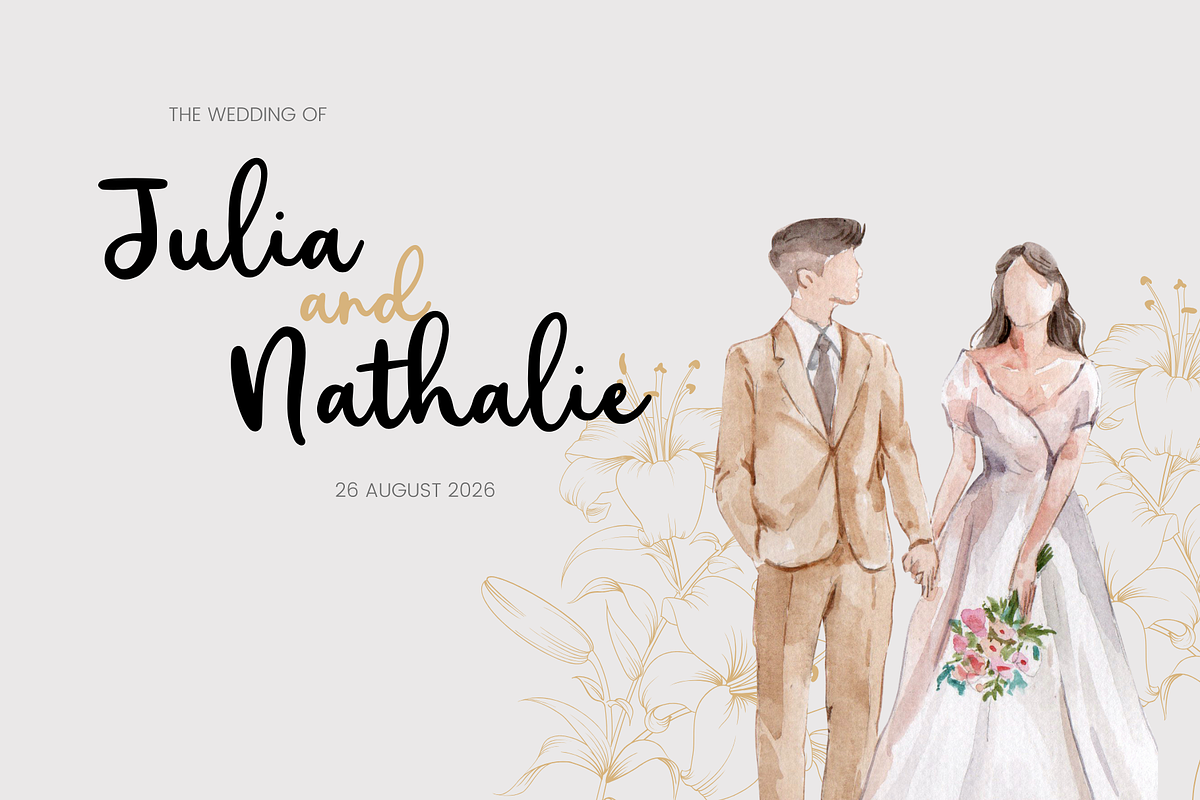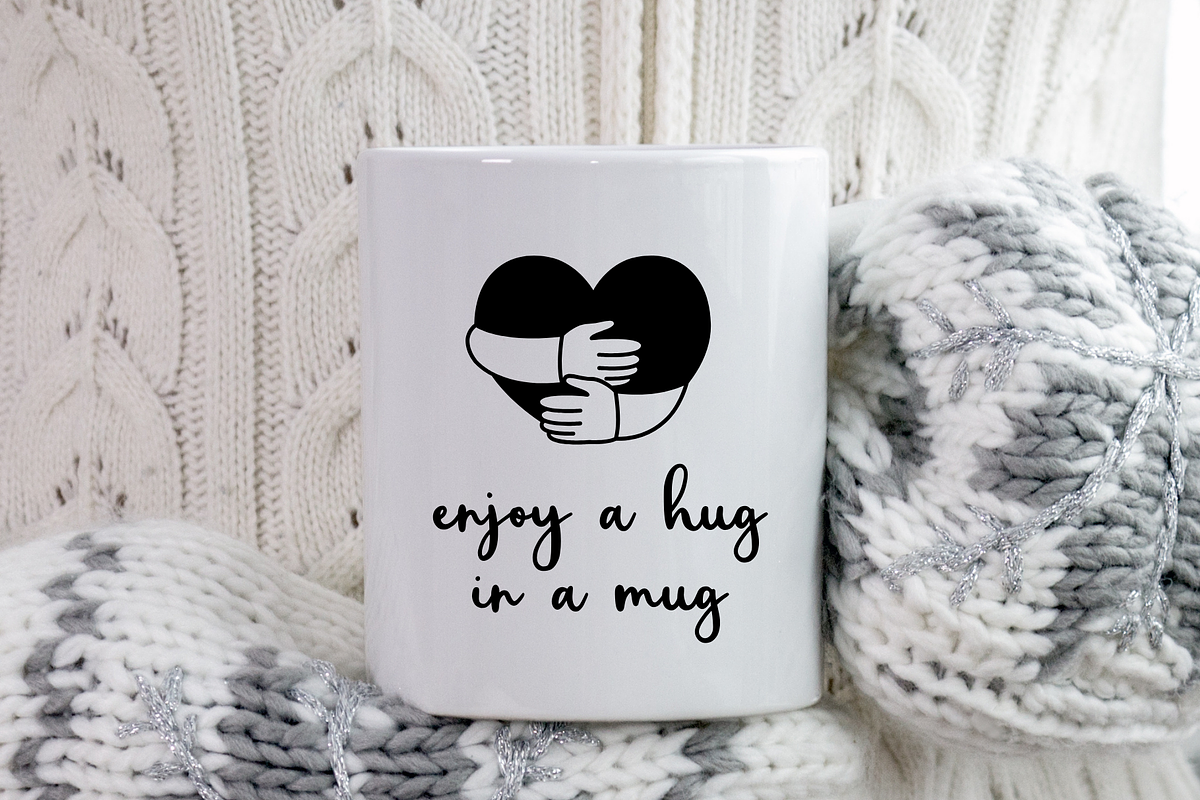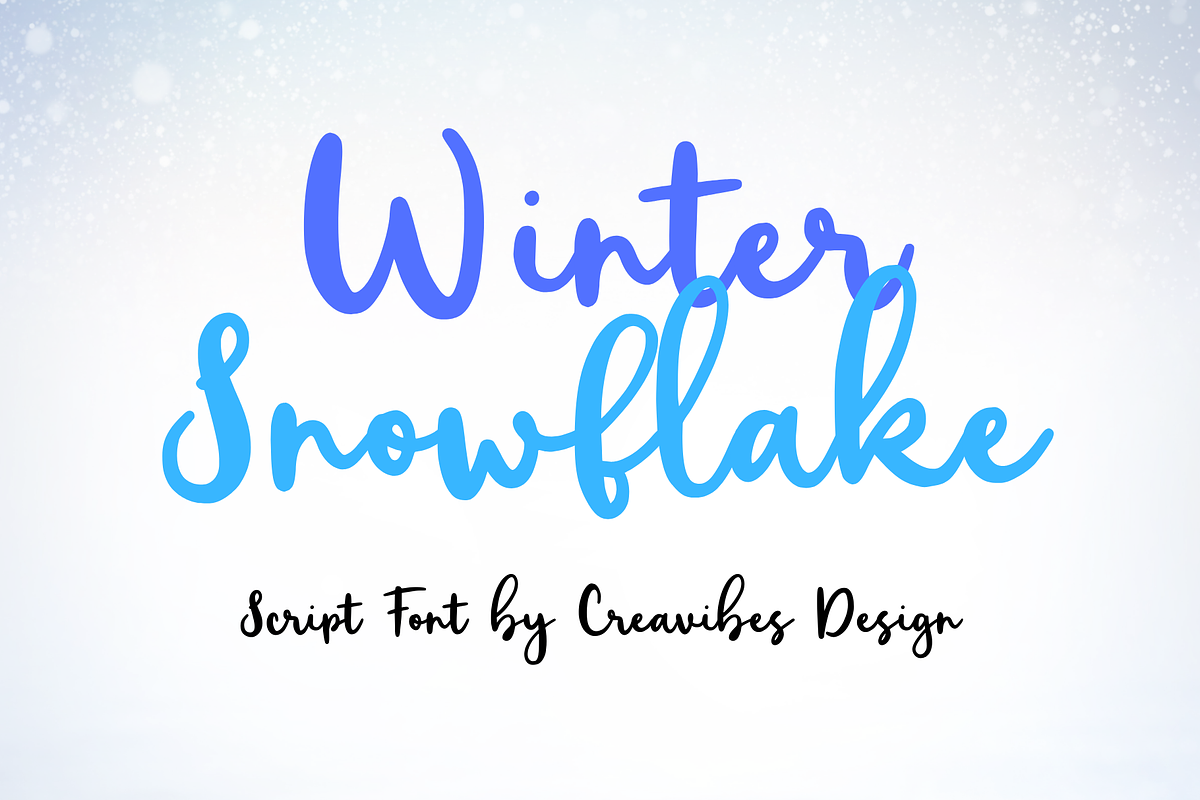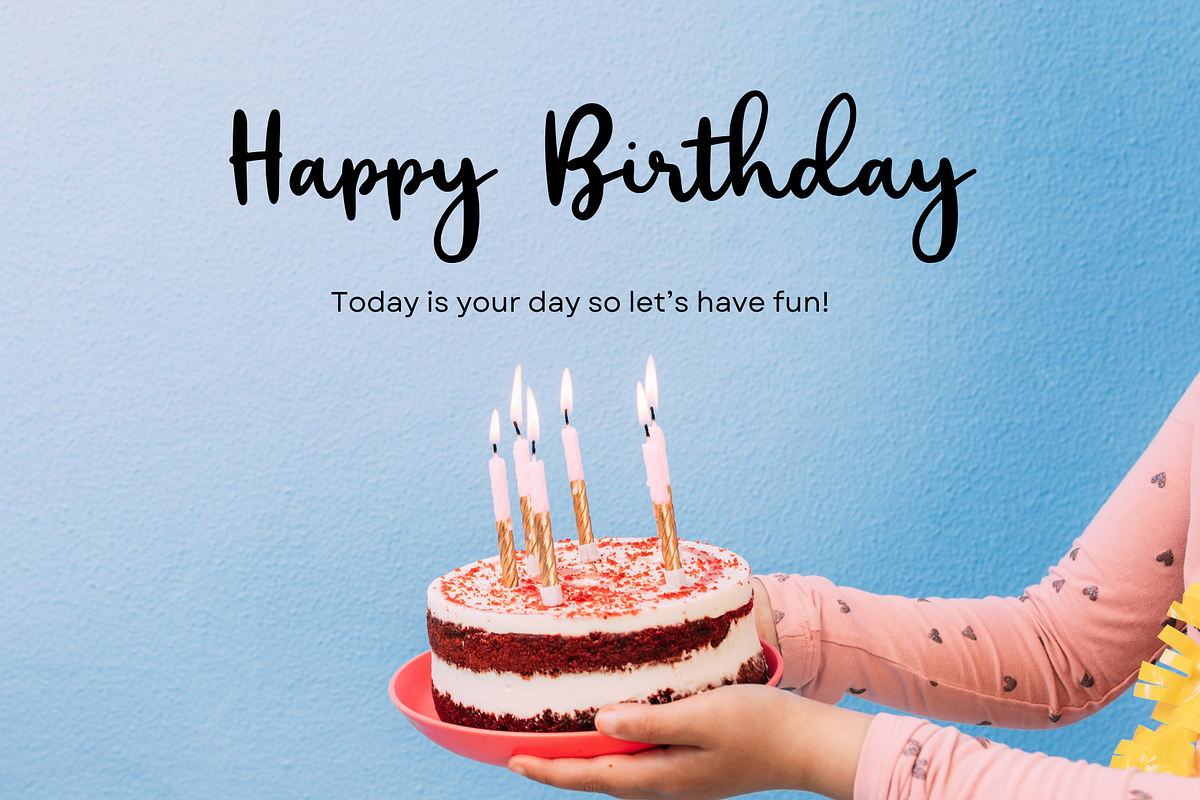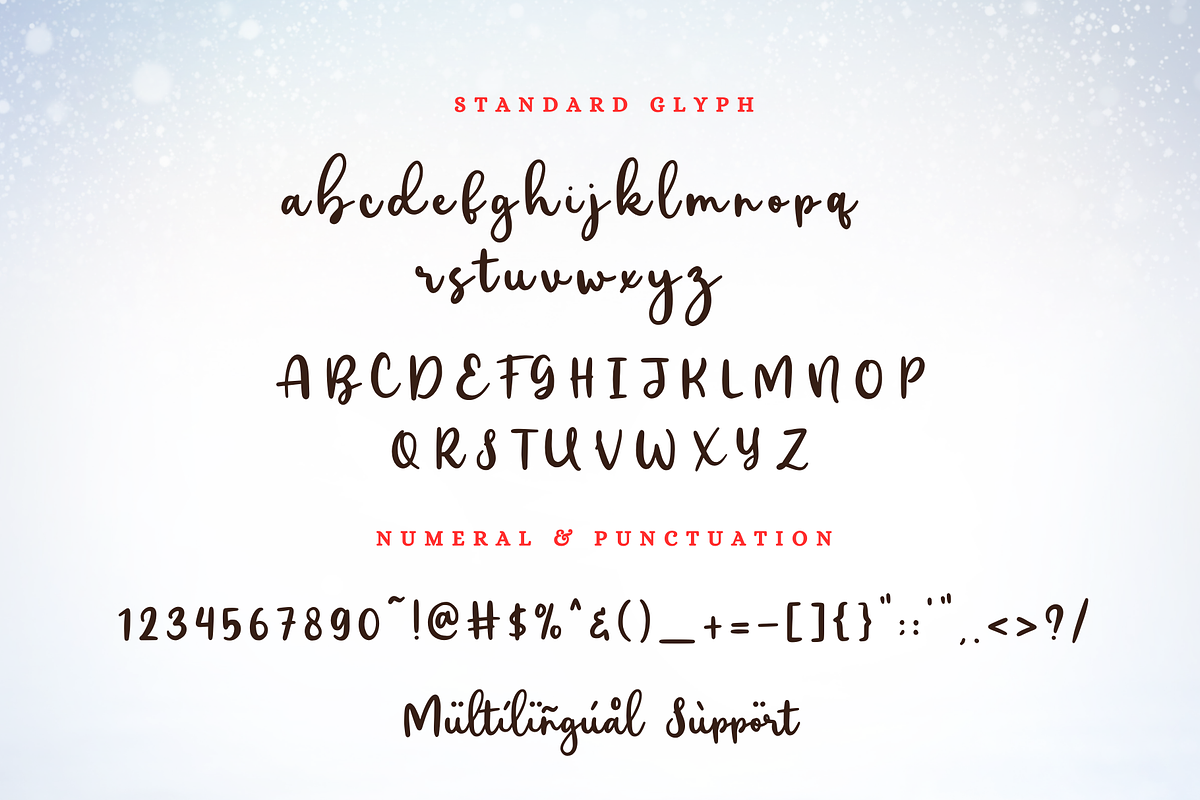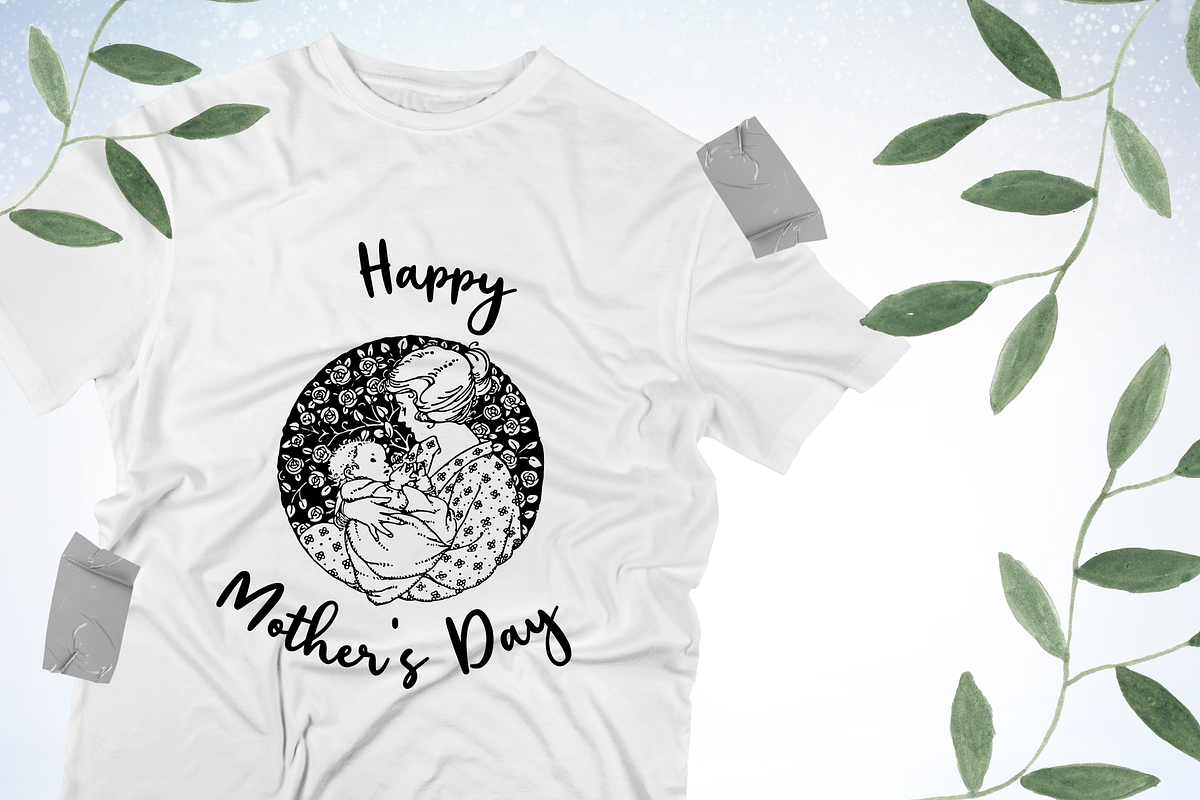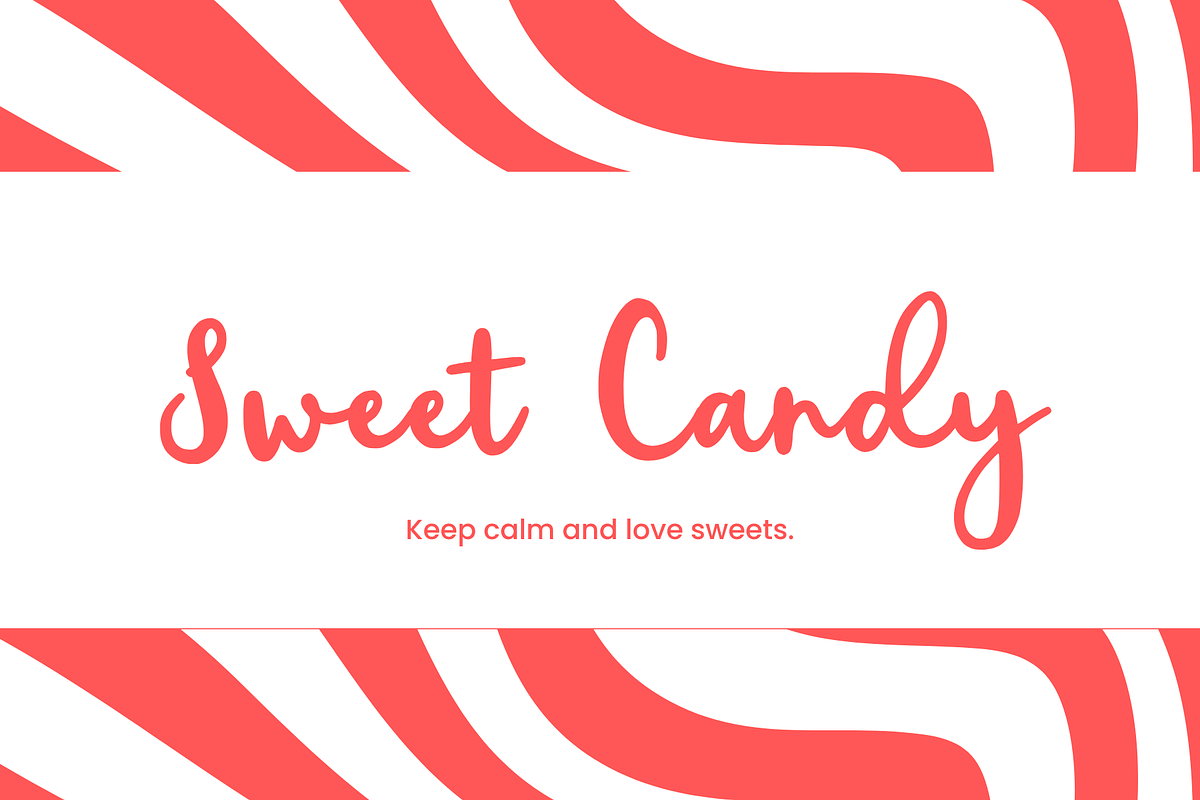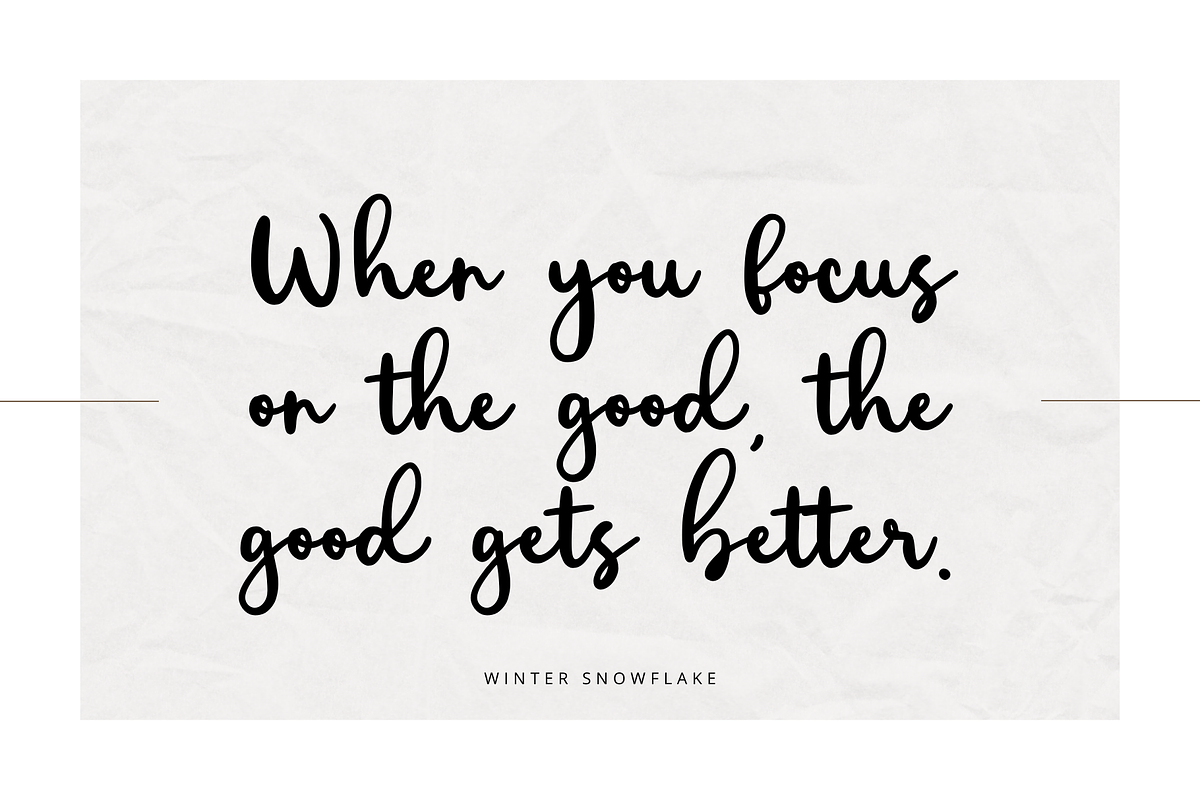
Winter Snowflake
"Introducing 'Winter Snowflake,' a lovely script font that encapsulates the enchanting spirit of winter. With its gracefully crafted letterforms, this font adds a touch of warmth and charm to your seasonal projects. Perfect for holiday cards, invitations, or any design seeking a blend of loveliness and winter magic, 'Winter Snowflake' swirls through your text like delicate snowflakes, creating an atmosphere of coziness and beauty in every stroke."